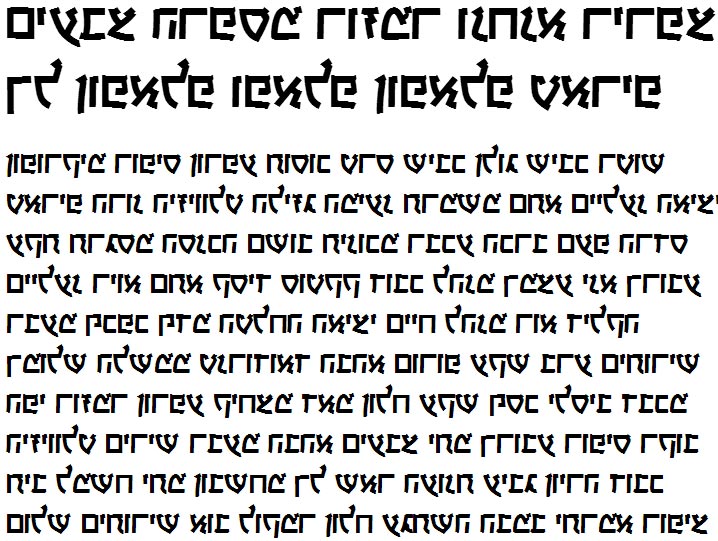
✓ One of the scripts I doodled in my school notebooks became this strange font, which is attributed by the much exaggerated, so-called "traditional" shapes, that have been deformed to obscurity.
X_Keshet Bold Hebrew Font